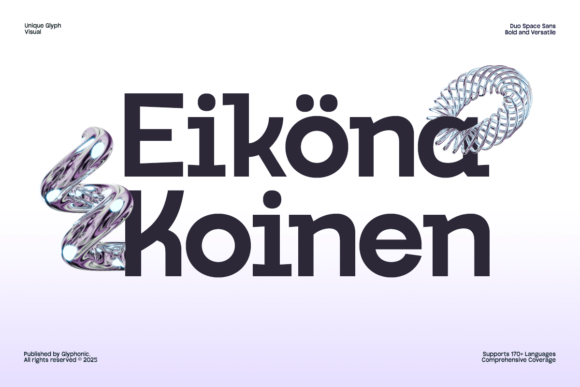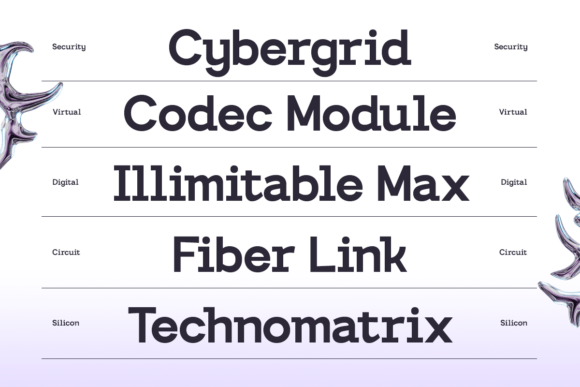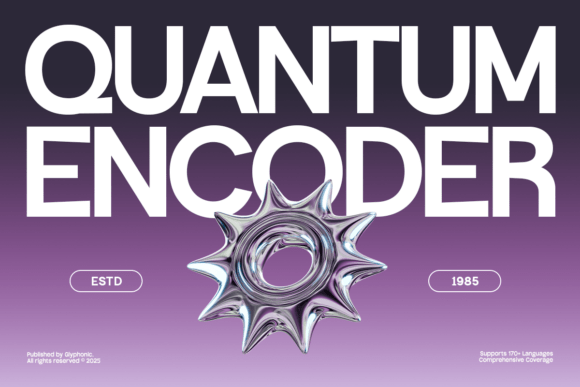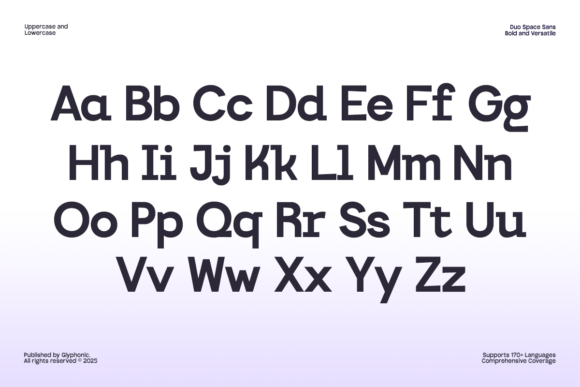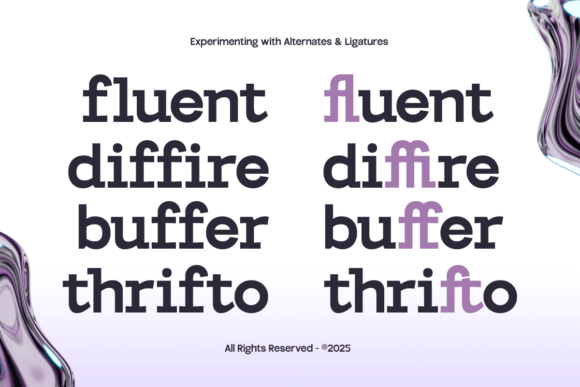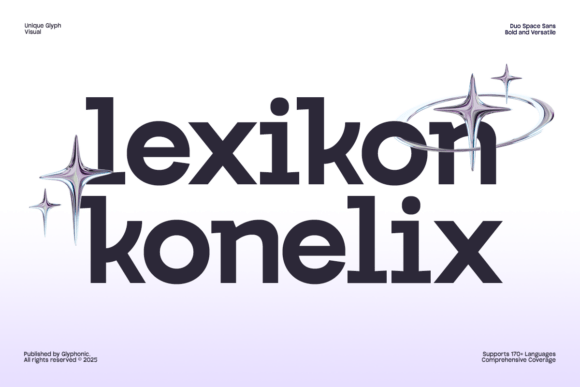
The Power of GC Exolink: Unleashing Boldness in Your Designs
I’ll never forget the struggle of working on a project, hours spent searching for the perfect font that captures the essence of the brand. A client requested a modern, bold, and futuristic look, and I was on a mission to find it. That’s when I stumbled upon GC Exolink – a contemporary sans serif typeface that embodies strength, clarity, and versatility. In this article, I’ll share my experience with GC Exolink, its features, and how to make the most of it in your designs.
GC Exolink: A Personal Review
- ✨ **Clean Geometry**: GC Exolink boasts clean lines and geometric shapes, making it perfect for modern designs.
- ✅ **Assertive Strokes**: The font’s bold strokes exude confidence and strength, ideal for headlines and titles.
- 💻 **Digital and Print Friendly**: GC Exolink adapts seamlessly across various mediums, from digital interfaces to print media.
- 📈 **Balanced Proportions**: The font’s precise detailing and balanced proportions make it adaptable yet distinctive.
While GC Exolink is an excellent font, there are a few minor quirks to consider:
- ⚠️ **Limited Serif Options**: As a sans serif font, GC Exolink might not be the best choice for projects requiring traditional serif typography.
- 🤔 **Glyph Limitations**: Some users have reported limited glyph options, which might restrict creative freedom.
The Story Behind GC Exolink
GC Exolink was designed with the goal of creating a modern, bold, and versatile typeface that embodies strength and clarity. The design process involved experimenting with clean geometry and assertive strokes to create a confident voice that adapts seamlessly across various mediums. While the actual designer behind GC Exolink remains unknown, it’s clear that their vision was to craft a font that infuses typography with power, modernity, and timeless impact.
| Author | Glyphonic |
| What is GC Exolink? | GC Exolink is a contemporary sans serif typeface designed to embody strength, clarity, and futuristic versatility. |
| What are the best uses for GC Exolink? | GC Exolink is perfect for branding, editorial layouts, tech-inspired projects, and striking visual identities. |
| Is GC Exolink suitable for digital designs? | Yes, GC Exolink adapts seamlessly across digital and print media, making it an excellent choice for digital interfaces and more. |